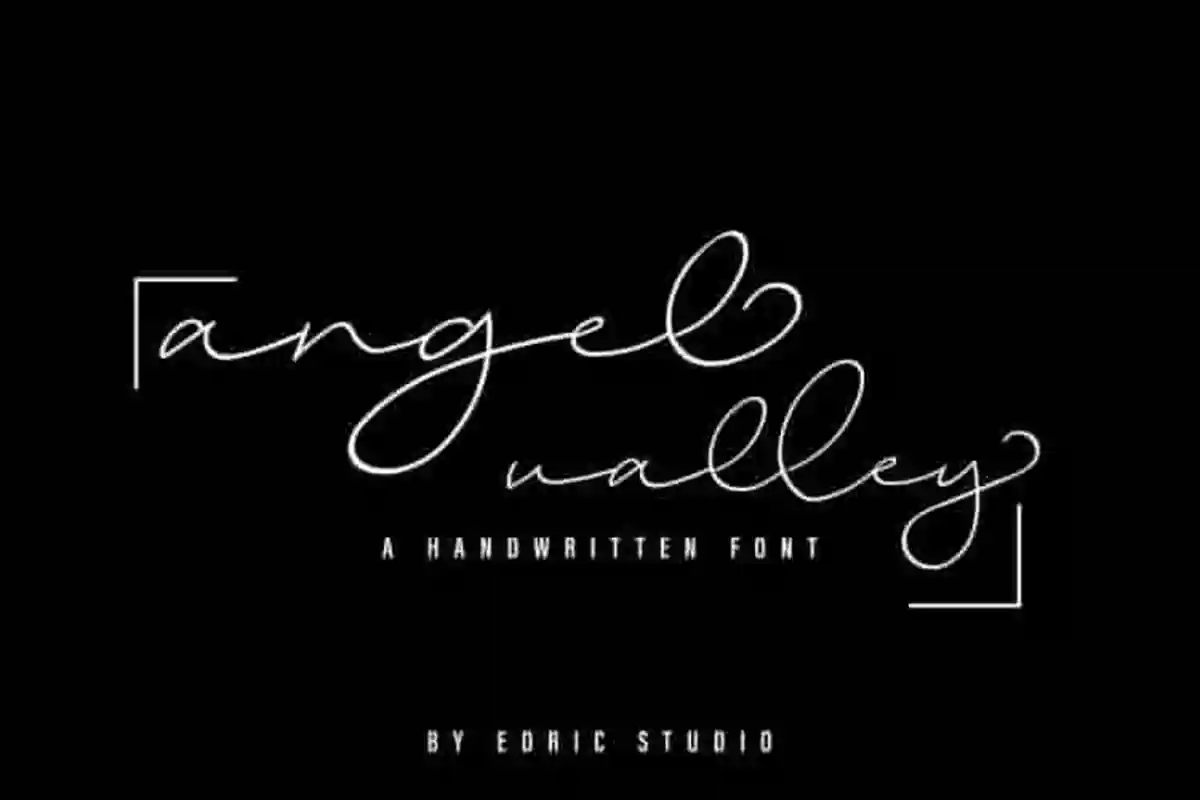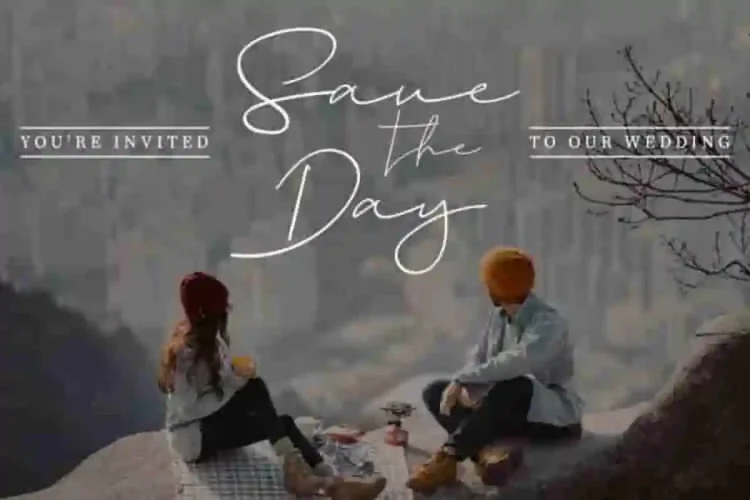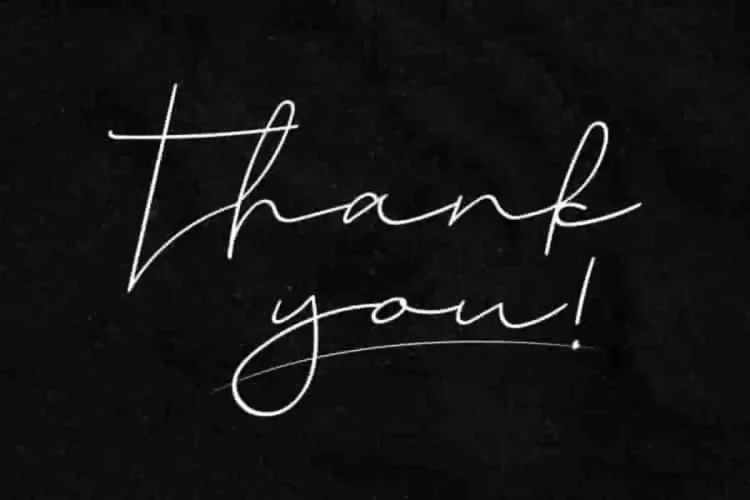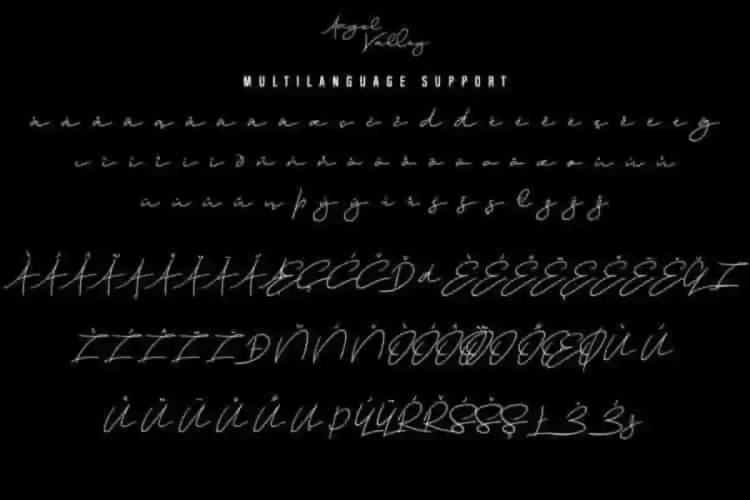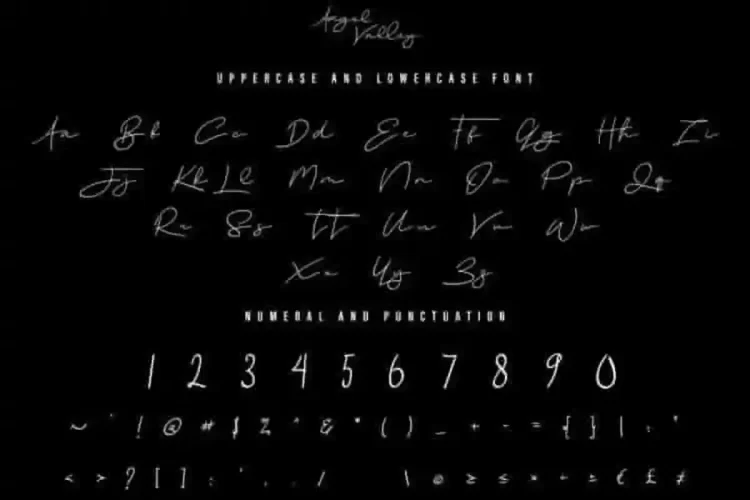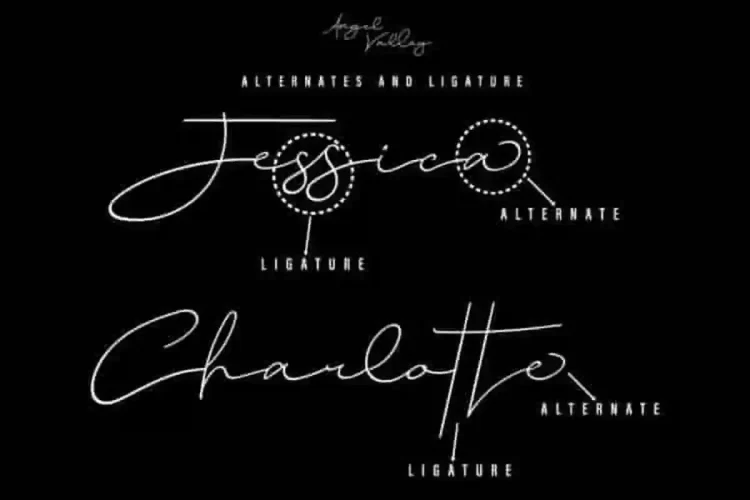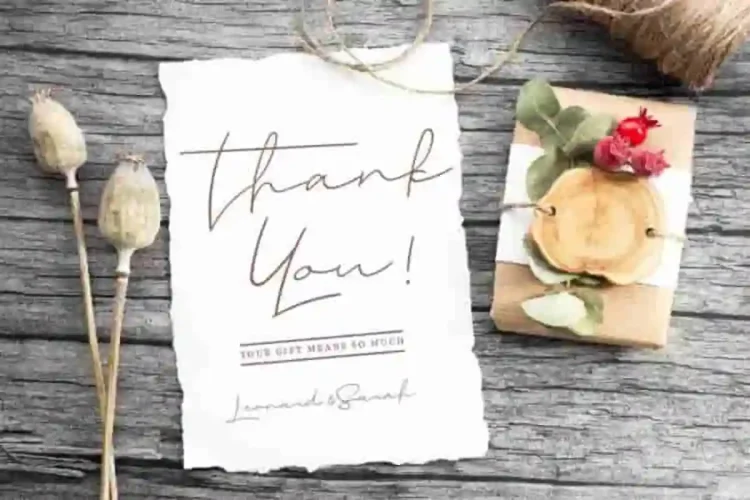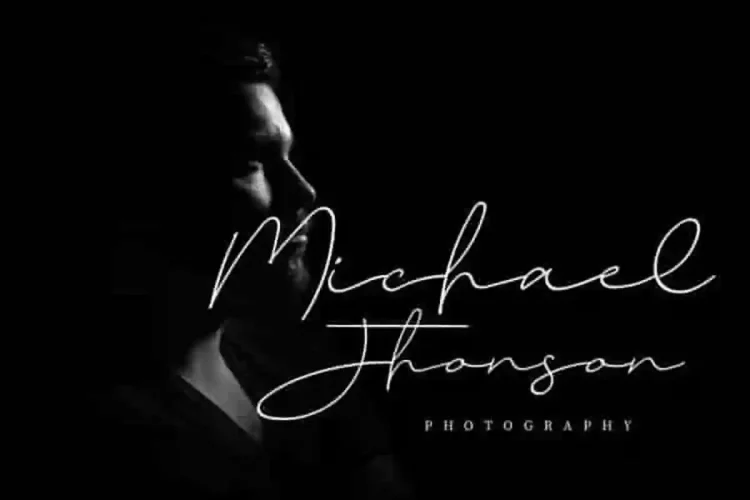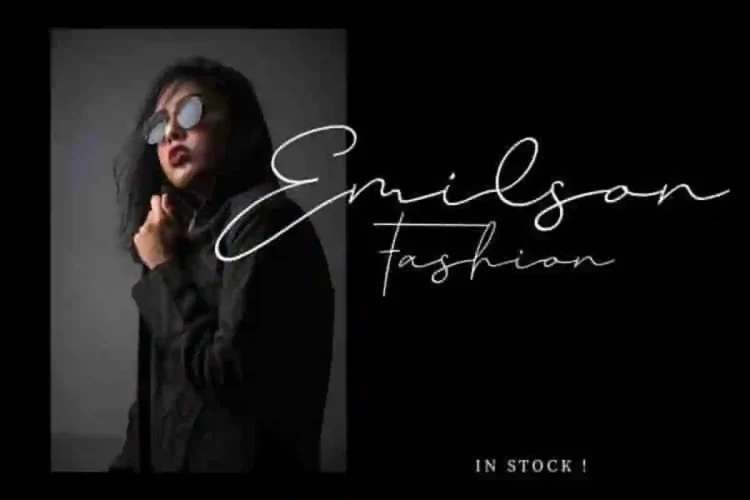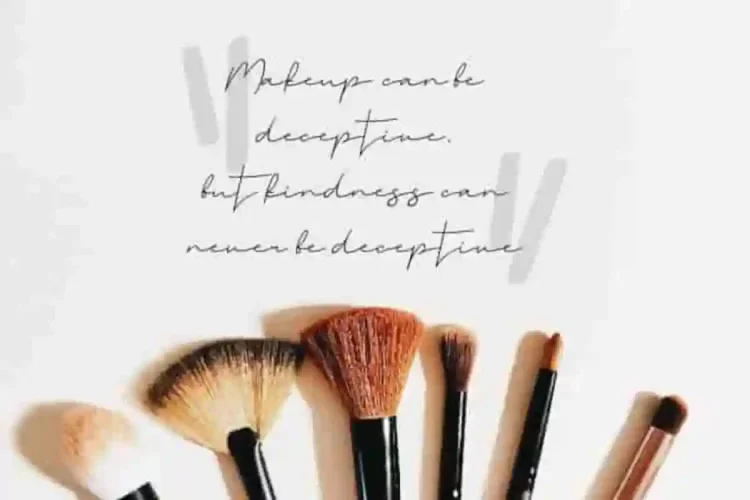
Angel Valley Calligraphy Font
From EDRIC Studio, in 2020,
Please welcome! Our newest font  : Angel Valley Font
This is a Signature calligraphy font, handcrafted from our Studio here in Garut and Bandung, Indonesia. The artists/designers of this beautiful tyeface is Saepul and Sarah Suci.
Angel Valley Font is an exclusive calligraphy name branding signature script typeface with natural pen style. This font has a stunning characters set, perfectly managed with well spaced and kerning. The theme style of this font will elegant,  vintage, stylish, sophisticated and classic handw writing style. You wont find any where else, the font like Angel Valley Font.
Angel Valley Font will be great for any projects including : branding, logo, stationery, business card, signage, flyer, brochure etc. Almost all industries will be match for this typeface: wedding, events, real estate, architect, law firm, florist, gardening, makeup artist, travel, hotel, musician etc.